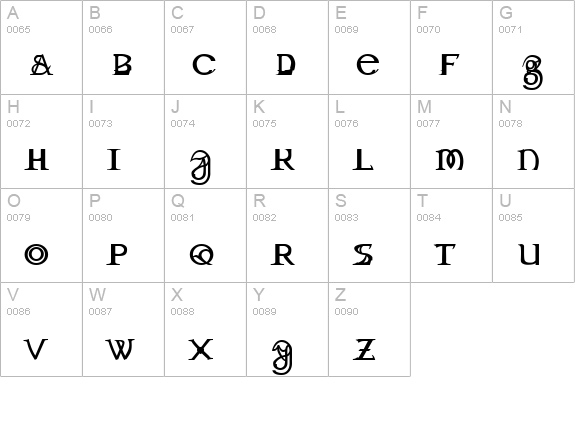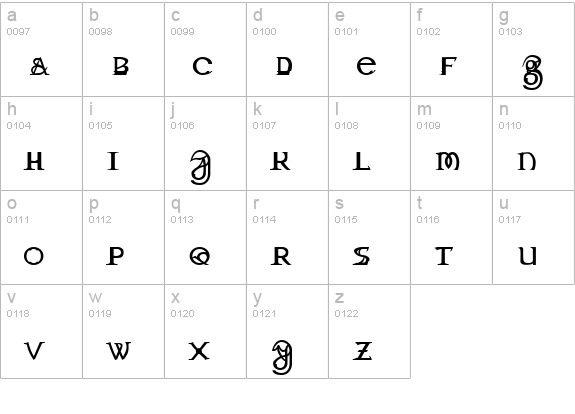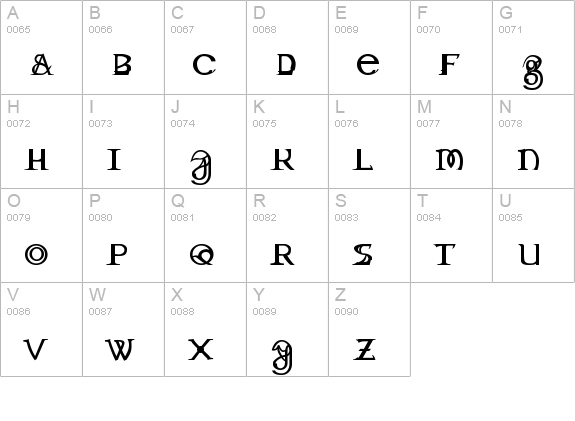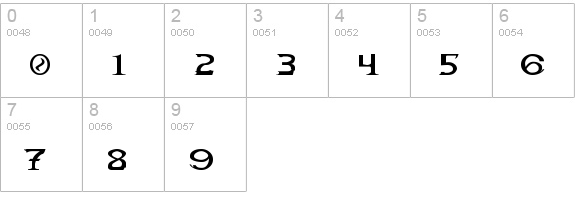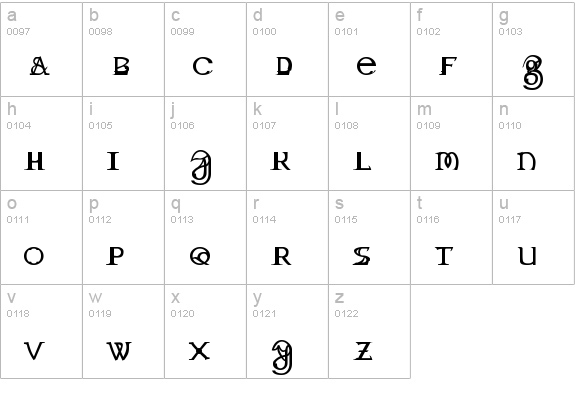
Dragonmaster Normal Font Details
Dragonmaster Normal is the standard, neutral variant in the Dragonmaster typeface family \xE2\x80\x94 well suited to general body text, paragraphs, and standard typographic work.
Introducing Dragonmaster Normal font, a captivating typeface that exudes power and mystique. With its bold and intricate design, this font is perfect for projects that require a touch of fantasy and adventure. Dragonmaster Normal is versatile and can be used for a wide range of designs, from posters to logos to book covers. The best part? Dragonmaster Normal font is completely free to download at FontsMarket.com. Simply visit the website and unleash your creativity with this stunning typeface. Whether you're a seasoned designer or just starting out, Dragonmaster Normal will add a touch of magic to your projects. Download it today and let your imagination soar!